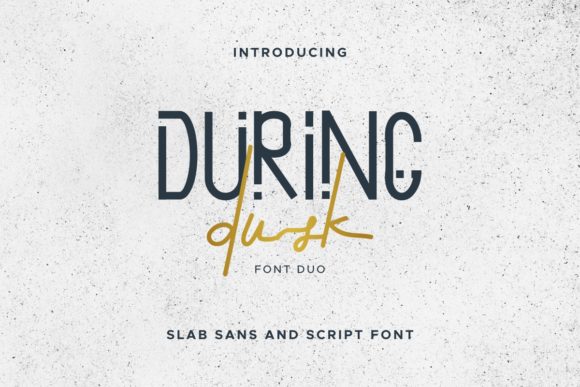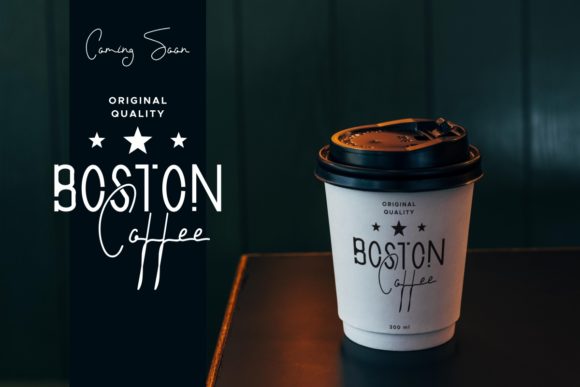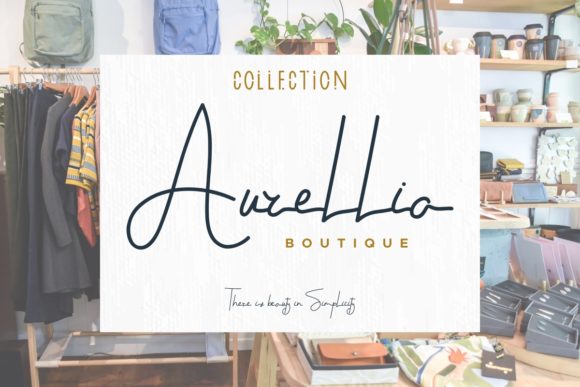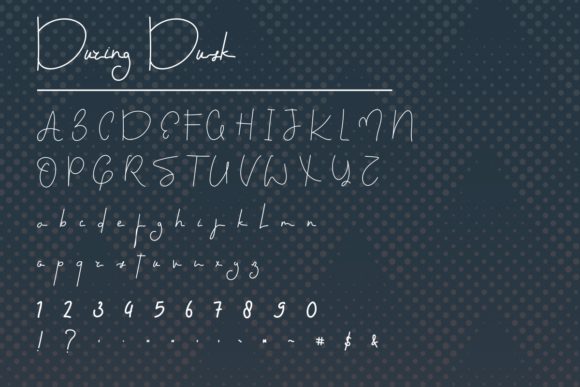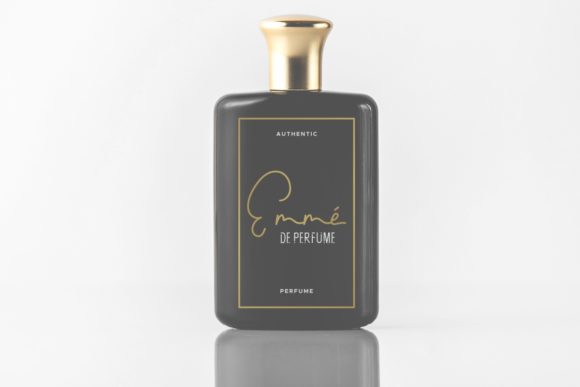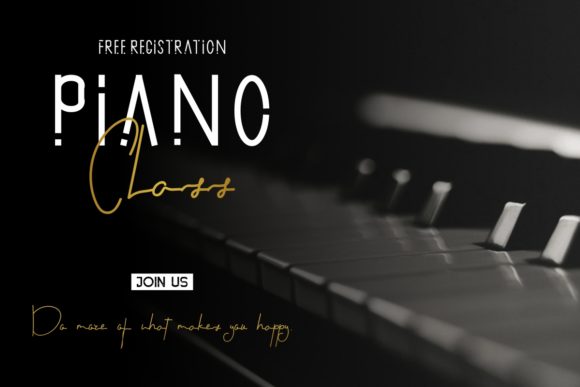
Introduction to During Dusk Font
As the sun sets and the sky transforms into a canvas of warm hues, the perfect font to capture the essence of the moment often slips our minds. We’ve all been there, staring at a blank page or a design project, desperate for the perfect typography to bring our creative vision to life. That’s where the During Dusk Font comes in – a stunning, high-quality duo font that’s sure to elevate your next design project.
With its versatility and casual charm, the During Dusk Font is the perfect addition to any designer’s toolkit. Suitable for branding, product packaging, invitations, and more, this font is a valuable resource for creatives of all levels. Whether you’re working on a free download or a paid project, the During Dusk Font is a must-have design element that will take your work to the next level.
Key Features of During Dusk Font
- Unique, hand-crafted font with a distinct aesthetic, perfect for adding a touch of elegance to any design.
- High-resolution design, suitable for use in both digital and print projects.
- Features a sophisticated, modern design that is sure to add a touch of sophistication to any creative project.
- Perfect for use in a variety of design contexts, including branding, packaging, and editorial design.
Honest Review: During Dusk Font
I recently stumbled upon the During Dusk Font, a beautiful design resource that’s perfect for creative projects. One of the things I love about this font is its high quality and smooth texture, making it ideal for print or digital use. The transparent background is also a nice touch, allowing me to easily blend the font with any background.
Here are some of the things that work well with the During Dusk Font:
- ✨ Beautiful, hand-drawn aesthetic that adds a touch of elegance to any design
- ✨ High quality and smooth texture, making it perfect for print or digital use
- ⚠️ Limited character set, which may not be suitable for longer texts
- ⚠️ May not be as versatile as some other fonts, limited to specific design styles
Overall, I’m impressed with the During Dusk Font. While it may have some limitations, its high quality and unique aesthetic make it a great addition to any designer’s toolkit. And the best part? It’s a free download, making it a great resource for designers on a budget.
Tips for Getting the Most Out of During Dusk Font
For optimal results, use the During Dusk Font with a transparent background to create a high-quality design. Experiment with different font sizes and colors to achieve the desired effect.
The During Dusk Font is perfect for creative projects such as:
- Brand logos and identity designs
- Editorial and publishing projects